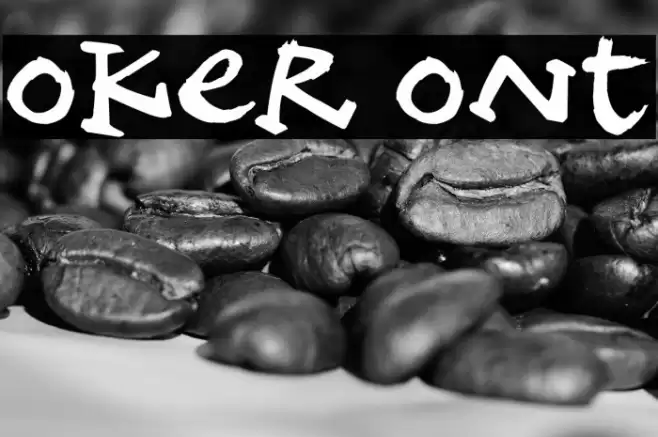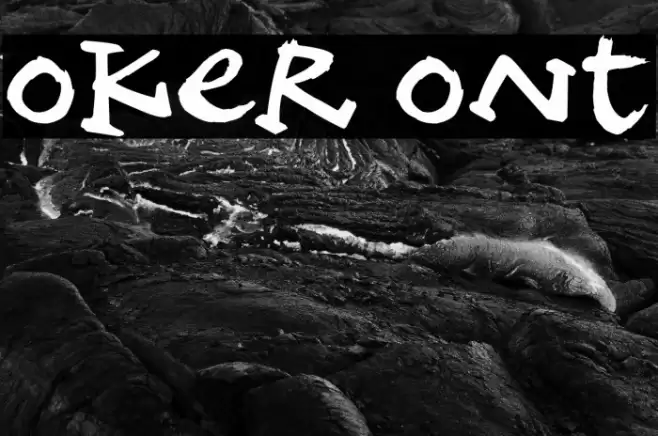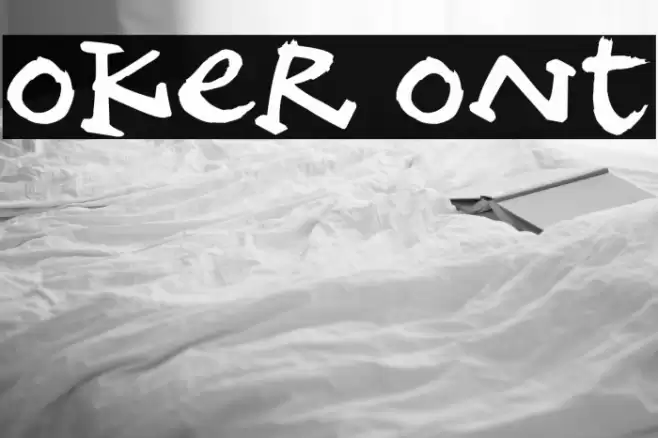
Joker Font
Joker Description
This font exhibits a playful and whimsical style, characterized by its uneven, hand-drawn appearance. The letters have a dynamic, slightly chaotic form, with varying stroke thicknesses that add to its lively and energetic feel. The uppercase letters are bold and expressive, while the lowercase letters maintain a consistent style, enhancing the font's cohesive look. The numerals and special characters follow the same playful design, making it suitable for creative and informal projects. Its unique style captures attention and adds a sense of fun to any design.
A playful, hand-drawn font with dynamic and whimsical characters from Regular fonts.
- Proposed Projects: Ideal for children's book covers, playful branding, party invitations, and creative posters.